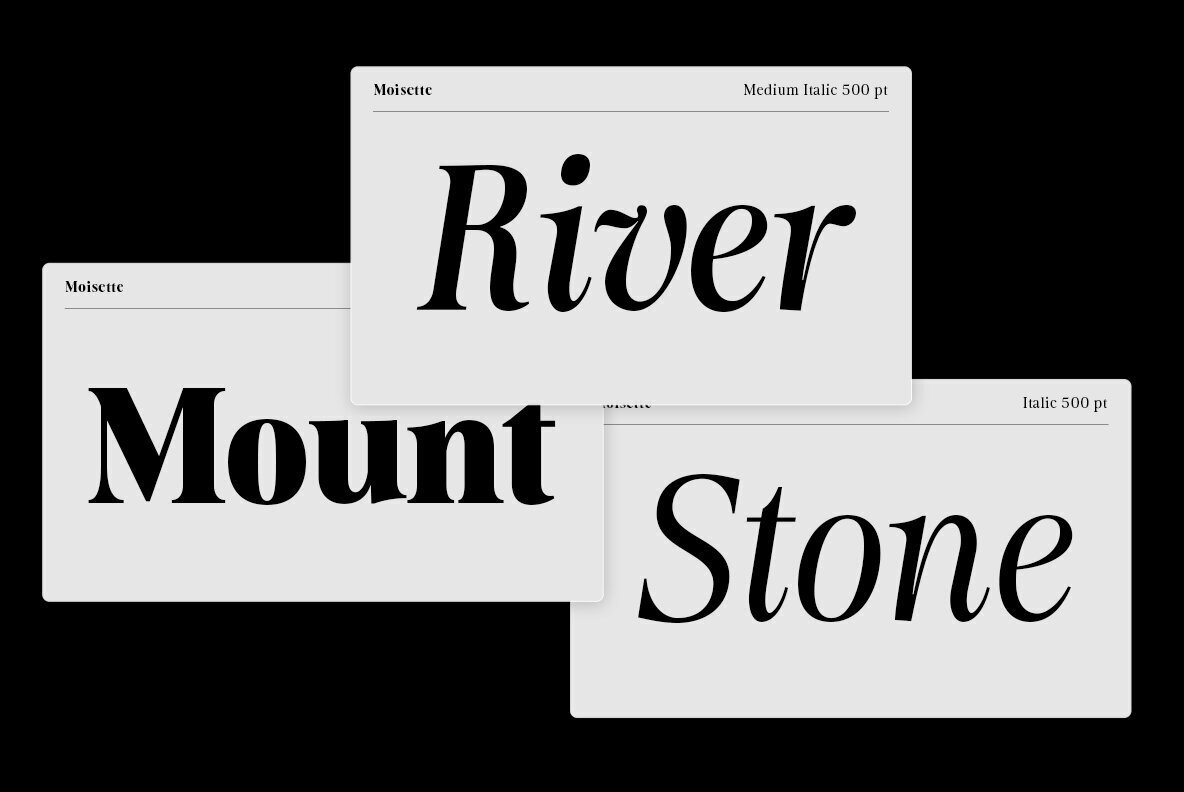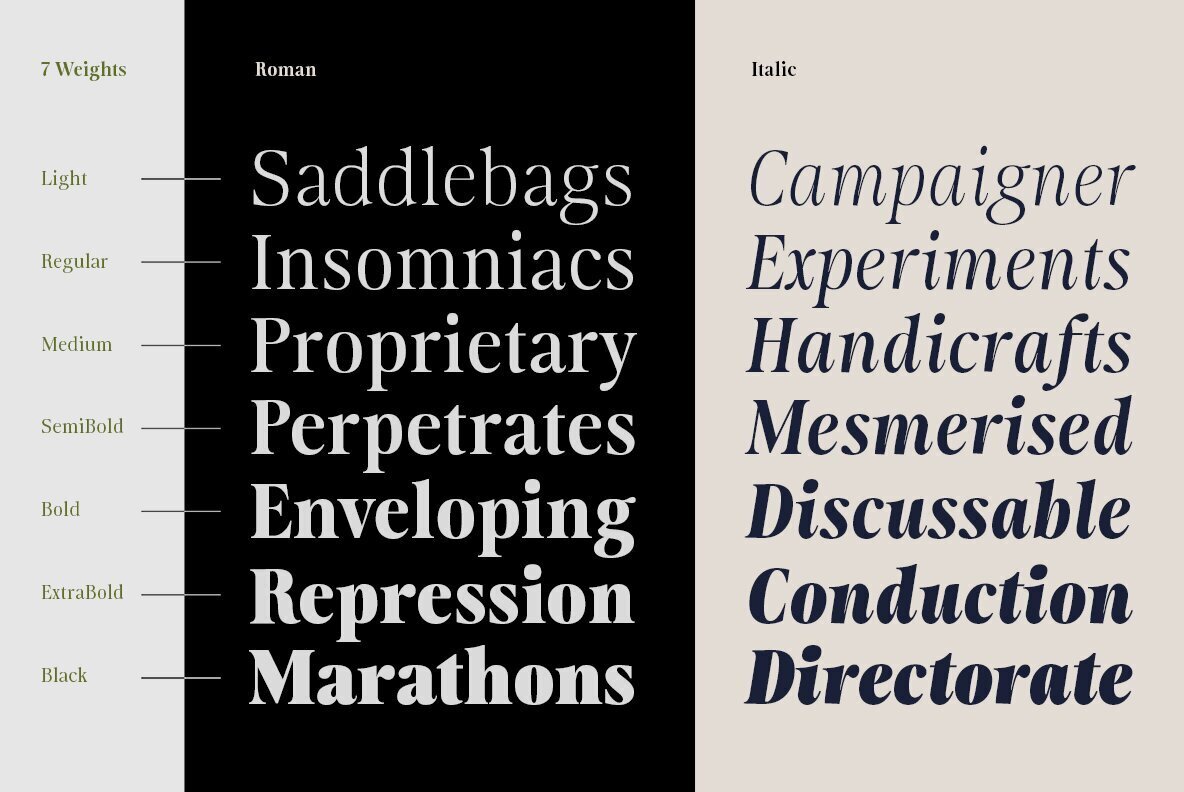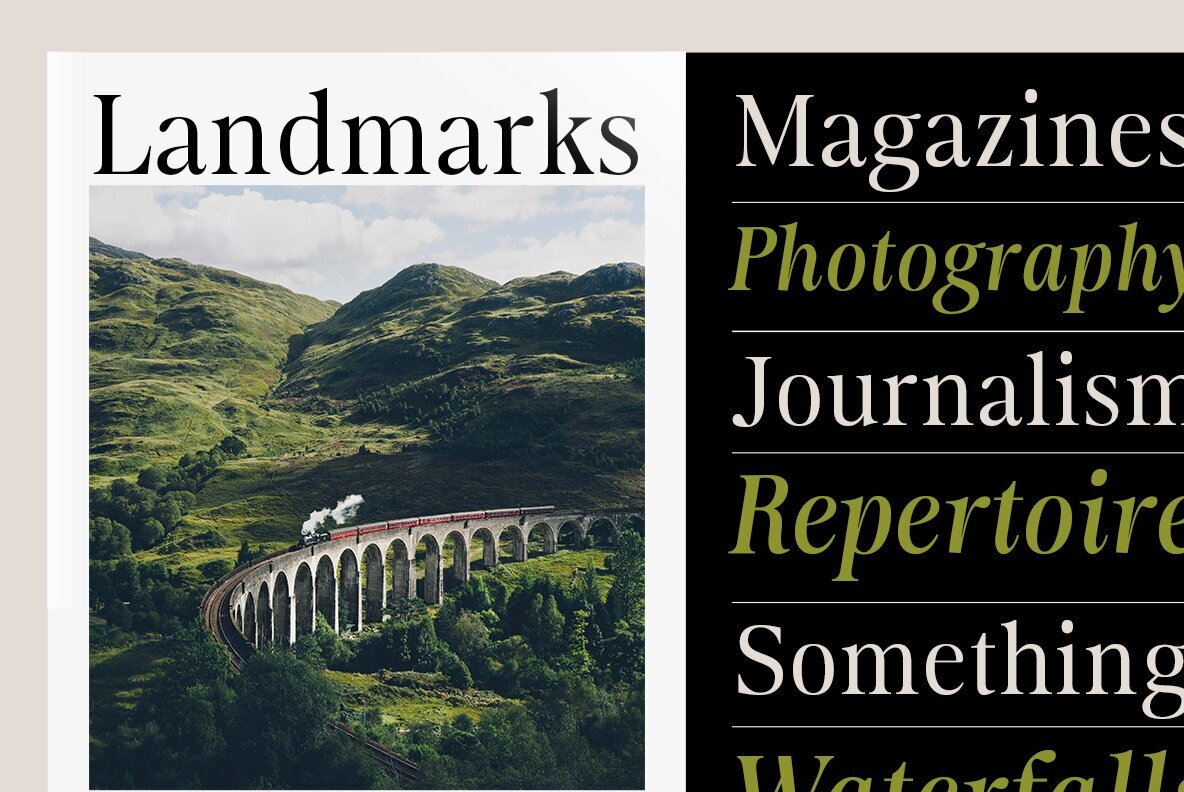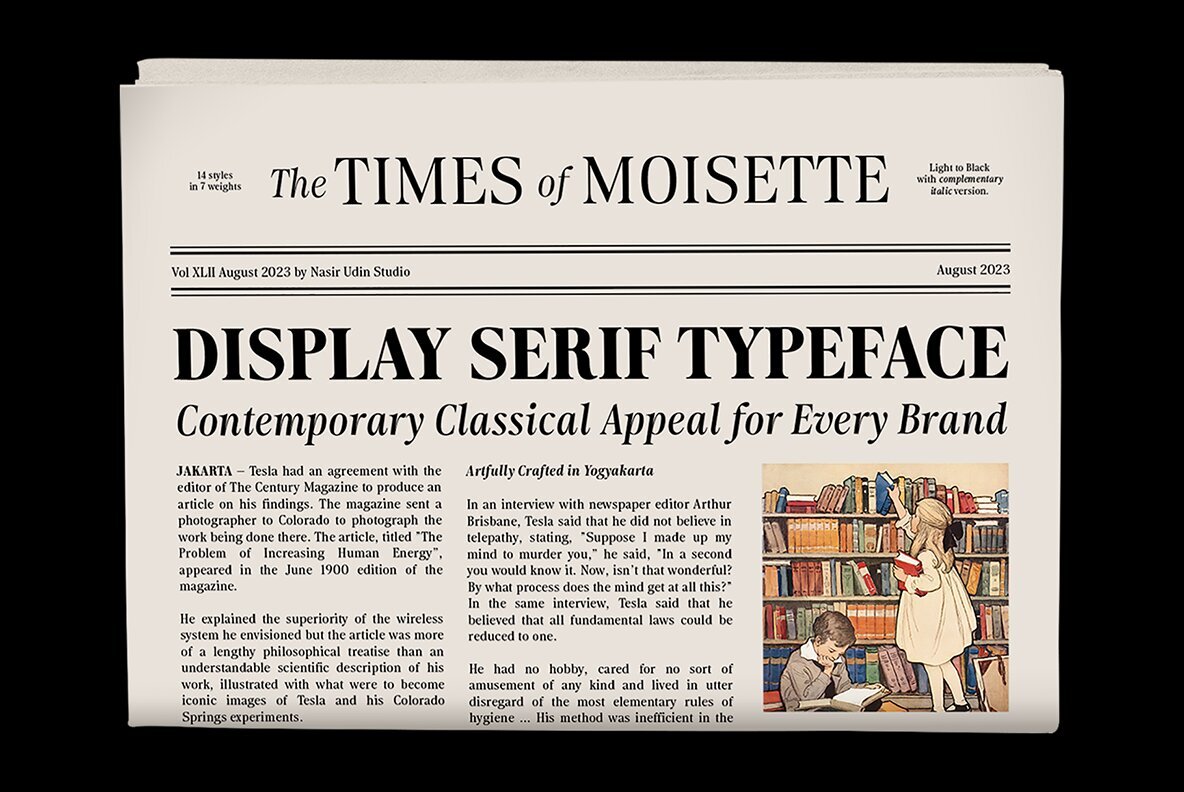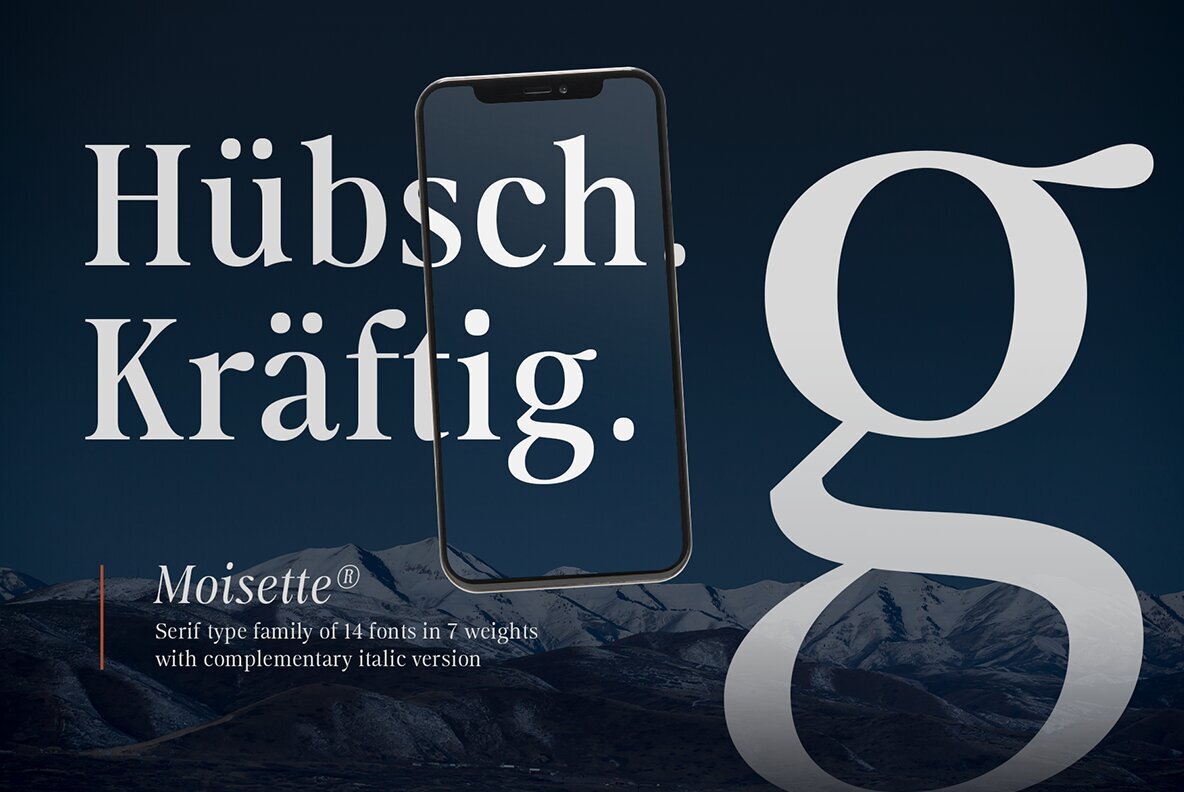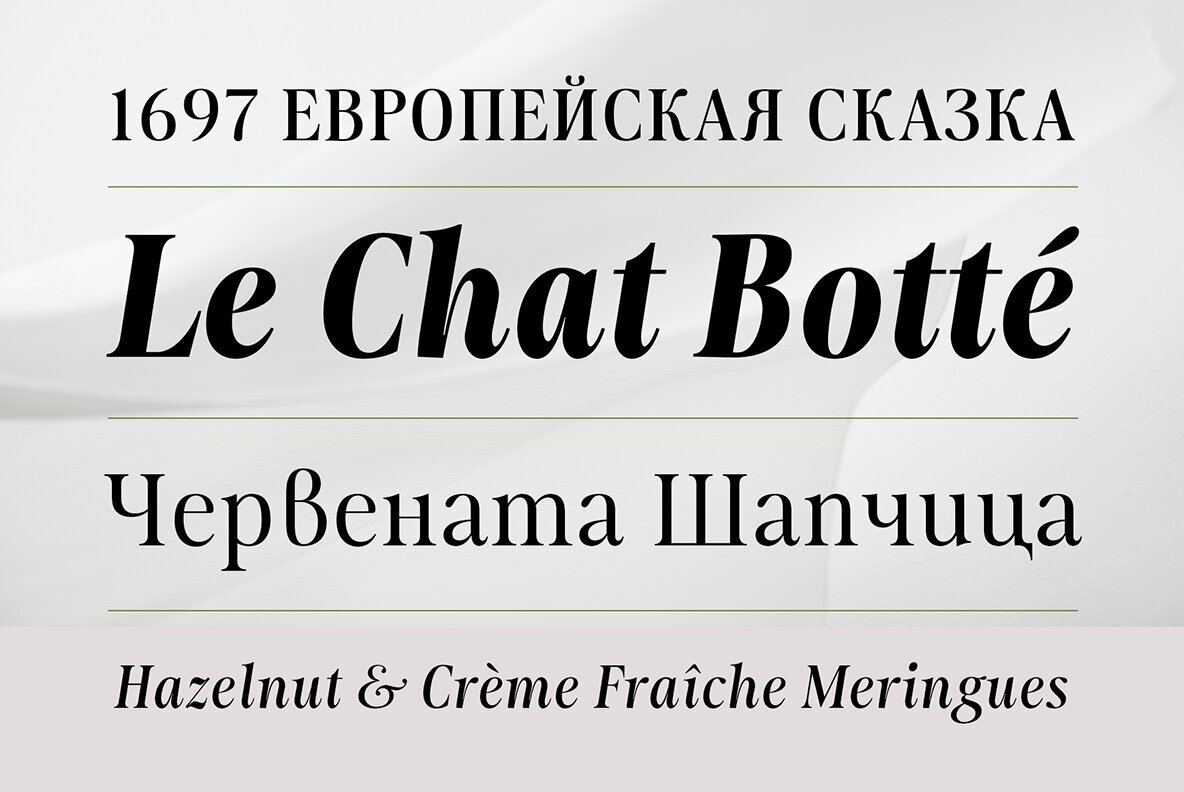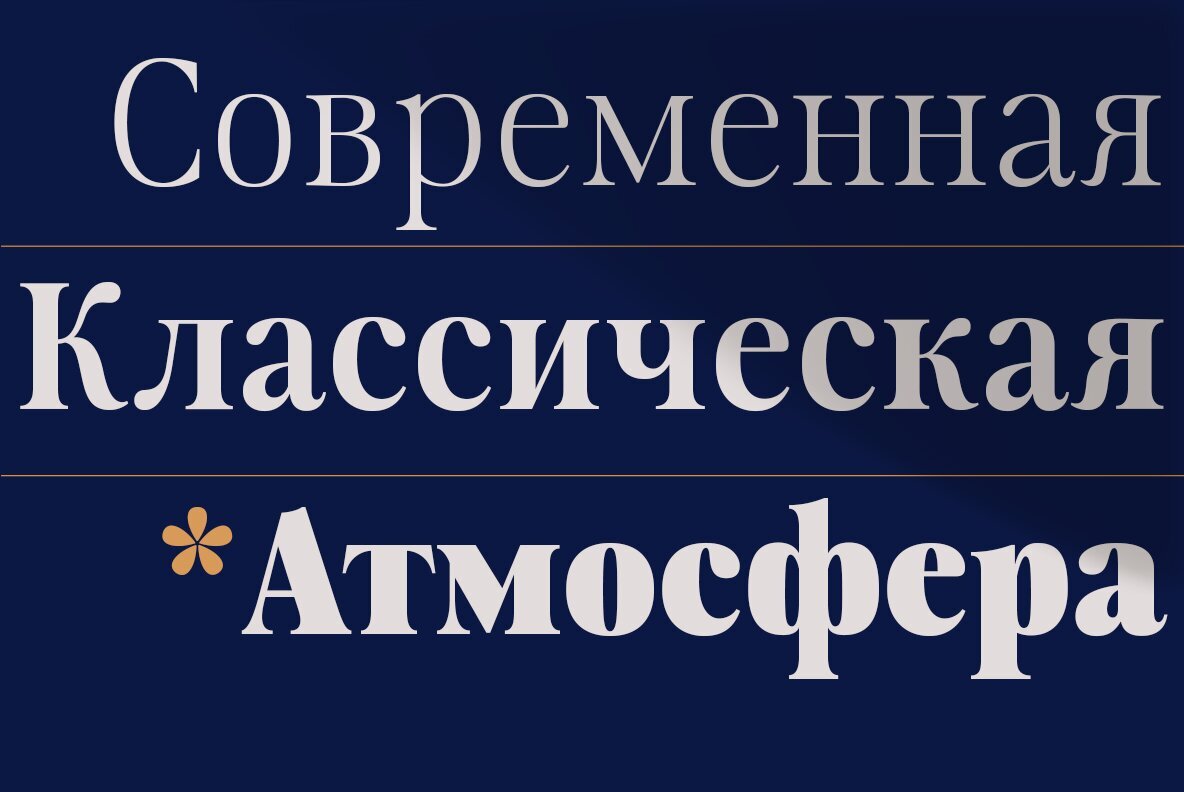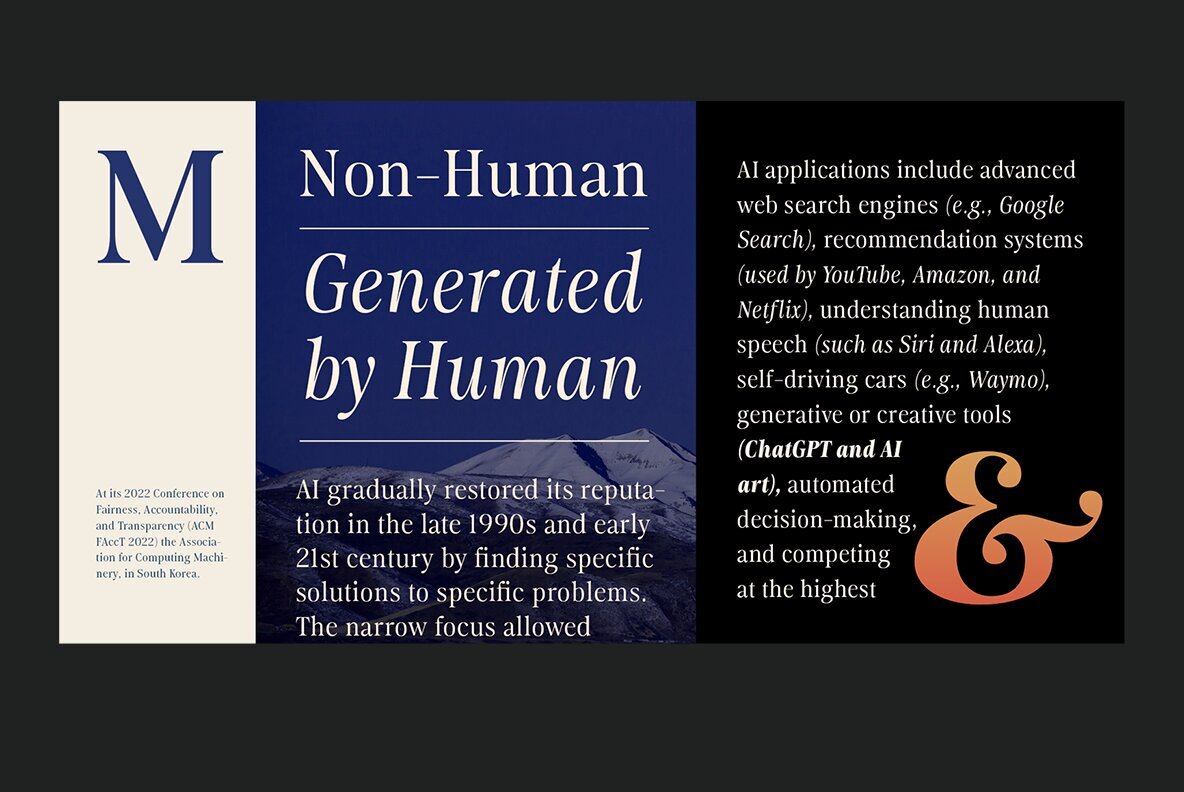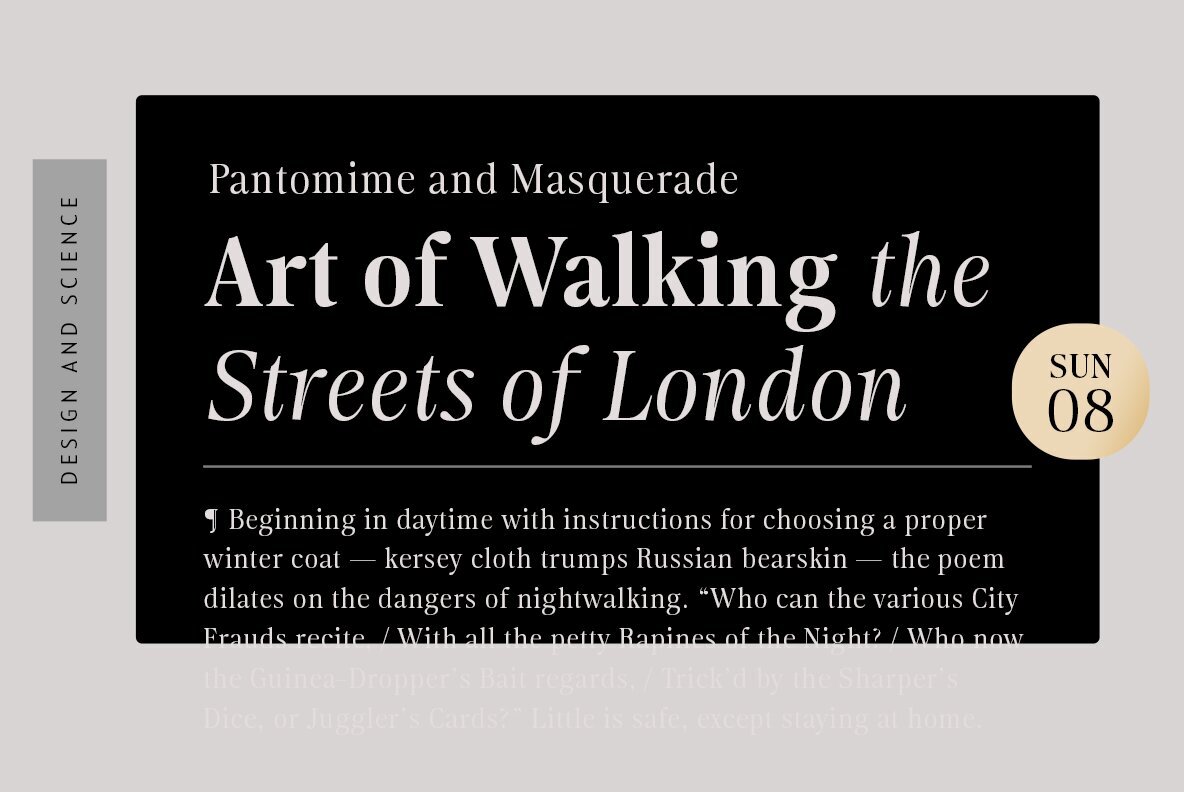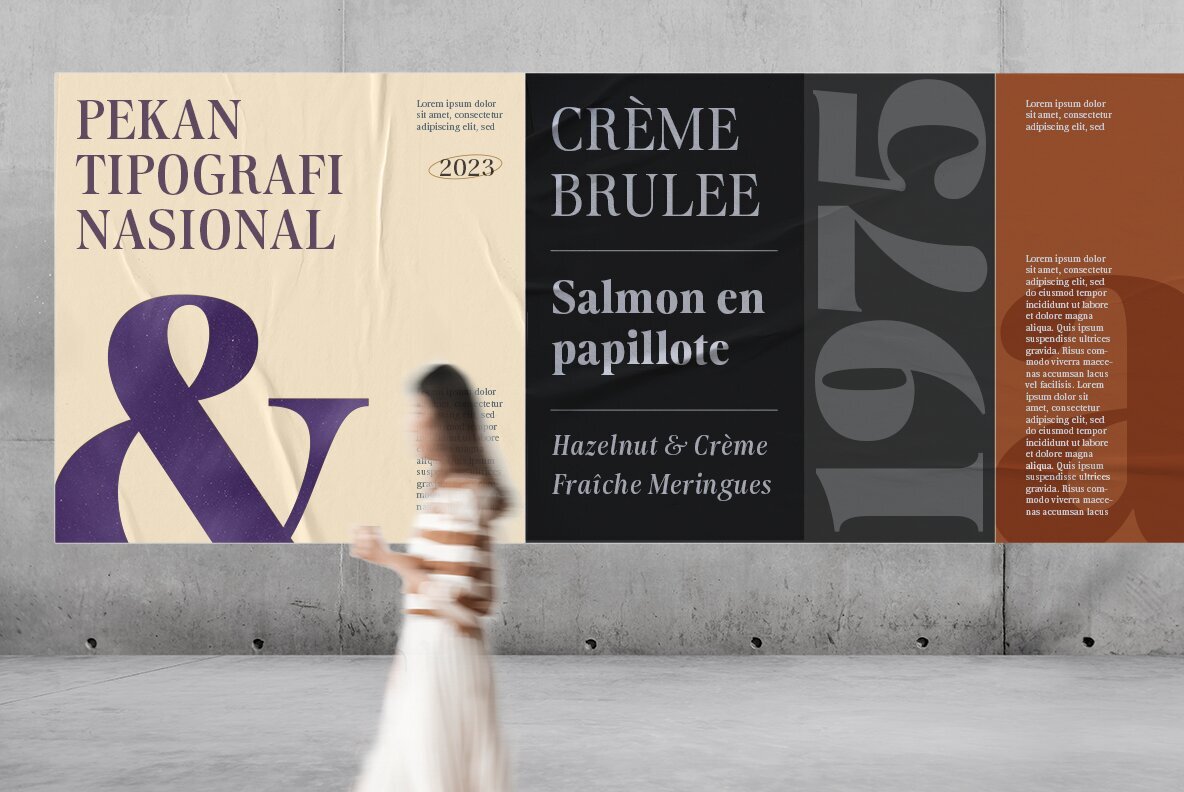
Moisette Font
Moisette is a serif typeface inspired by the classic and the modern. Developed in 7 weights, from light to black with its complementary italics, Moisette offers many possibilities to be applied in many graphic or editorial projects, for short paragraph or display purpose such as branding, newspaper headlines, book covers, web heading, packaging, etc. Moisette has been designed with high-contrast stem ratio to give an elegant touch and luxurious appeal, and its high x-height makes sentences more legibility. Also thanks to the extended Latin and Cyrillic character set (incld. Bulgarian & Serbian Cyrillic) that supports 200+ languages.